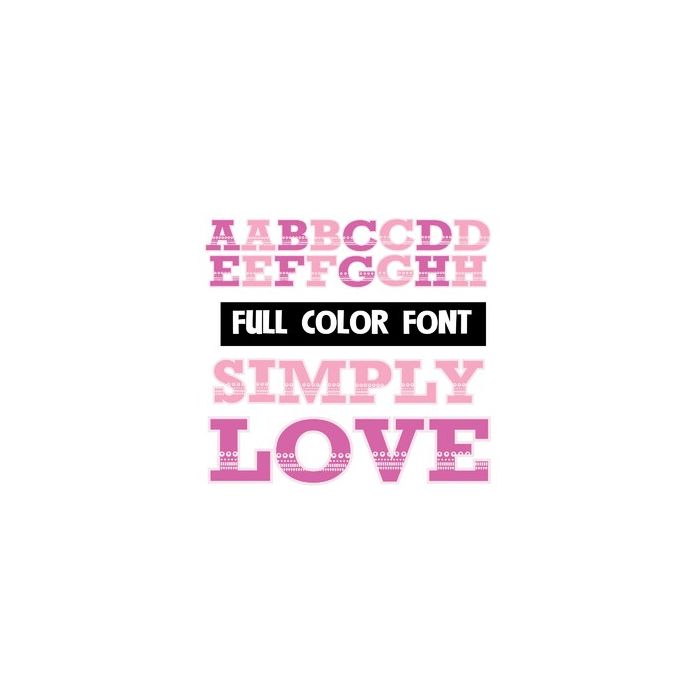
This full-color font features a decorative font in two shades of pink. For best results mix both cases up as you type. This font works best for titles, displays, posters and more. Please note color fonts will show as black in non compatible programs. This font type is compatible with Silhouette Studio.